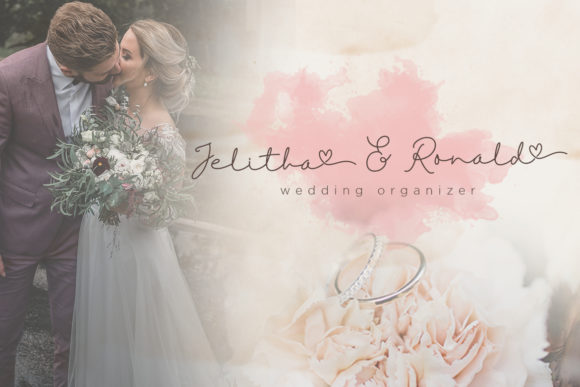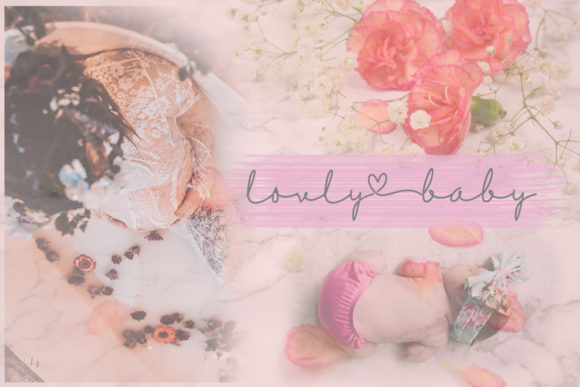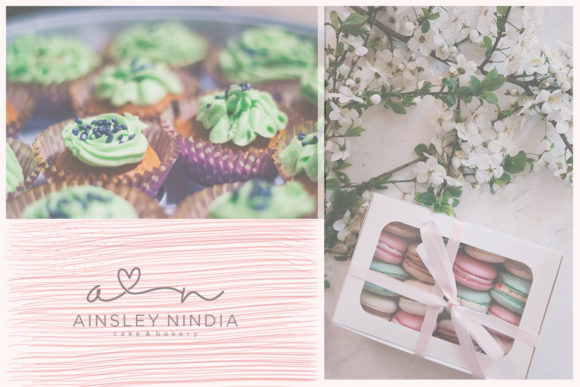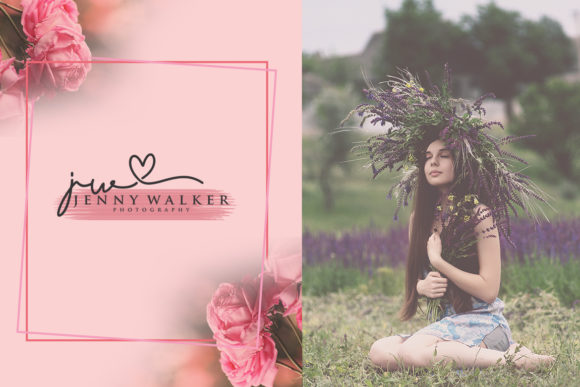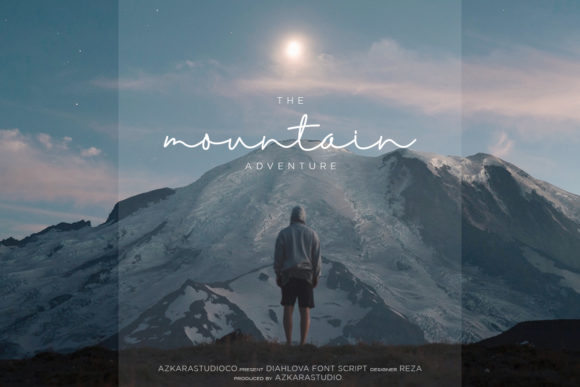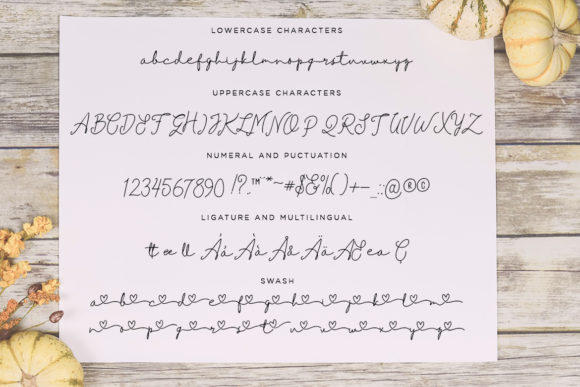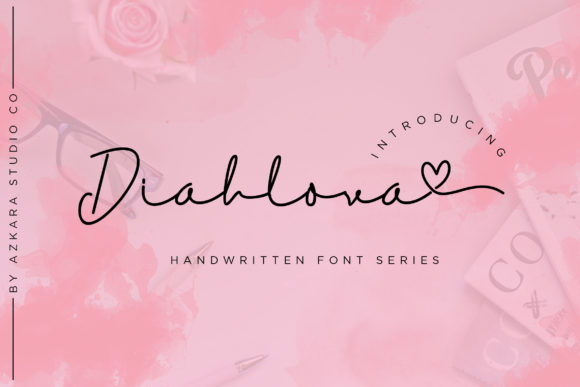
Diahlova Font: The Sweet and Romantic Monoline Script
Are you looking for a font that can add a touch of romance and whimsy to your design projects? Look no further than Diahlova Font! This beautiful monoline script font is perfect for designers and crafters who want to create stunning and unique designs that capture the heart. In this article, we’ll dive into the features and benefits of Diahlova Font, and explore how it can elevate your design game.
What is Diahlova Font?
Diahlova Font is a sweet and light monoline script font that features beautiful hearts in its swashes. The font’s elegant and flowing lines make it perfect for creating romantic and feminine designs. Whether you’re working on a wedding invitation, a branding project, or a craft tutorial, Diahlova Font is sure to add a touch of magic to your design.
Key Features of Diahlova Font
- Sweet and Light Monoline Script: Diahlova Font features a beautiful monoline script that is both sweet and light. The font’s flowing lines and delicate curves make it perfect for creating elegant and sophisticated designs.
- Beautiful Hearts in Swashes: One of the standout features of Diahlova Font is the beautiful hearts that adorn its swashes. These hearts add a touch of whimsy and romance to the font, making it perfect for designs that require a little extra charm.
- Romantic Vibe: Diahlova Font is designed to add a romantic vibe to any design idea. Whether you’re working on a wedding invitation or a Valentine’s Day card, this font is sure to set the tone for a lovely and sentimental design.
Benefits of Using Diahlova Font
So why should you choose Diahlova Font for your design projects? Here are just a few benefits of using this beautiful font:
- Unique and Eye-Catching: Diahlova Font is a unique and eye-catching font that is sure to stand out in any design. The font’s elegant lines and beautiful hearts make it a great choice for designers who want to create stunning and memorable designs.
- Versatile: Diahlova Font is a versatile font that can be used for a wide range of design projects. Whether you’re working on a wedding invitation, a branding project, or a craft tutorial, this font is sure to fit the bill.
Design Ideas Using Diahlova Font
So what can you create with Diahlova Font? Here are a few design ideas to get you started:
- Wedding Invitations: Diahlova Font is perfect for creating beautiful and romantic wedding invitations. The font’s elegant lines and beautiful hearts make it a great choice for wedding stationery.
- Branding Projects: Diahlova Font can also be used for branding projects, such as logos and packaging. The font’s unique and eye-catching design makes it a great choice for businesses that want to stand out.
- Craft Tutorials: If you’re a crafter or DIY blogger, Diahlova Font is a great choice for creating tutorials and guides. The font’s elegant lines and beautiful hearts make it perfect for creating visually appealing and easy-to-follow tutorials.
| Font Name | Diahlova Font |
| Author | azkarastudioco |
In conclusion, Diahlova Font is a beautiful and versatile monoline script font that is perfect for designers and crafters who want to add a touch of romance and whimsy to their design projects. With its elegant lines, beautiful hearts, and romantic vibe, this font is sure to elevate your design game and help you create stunning and unique designs. So why wait? Download Diahlova Font today and start creating your own romantic and memorable designs!